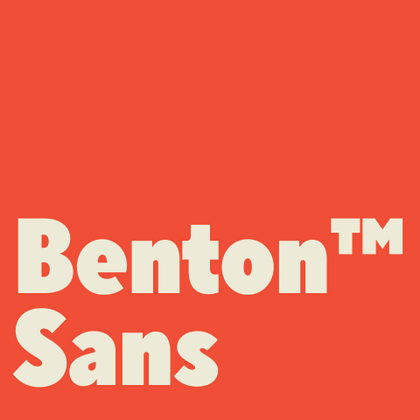
Fonts similar to Benton Sans
TypeType offers dozens of typefaces that retain the key advantages of Benton™ Sans. Fonts from the TypeType collection share Benton™ Sans balanced proportions, excellent readability, and versatility. For corporate style, web interfaces, or printed products, we have proven solutions. All typefaces are developed with modern typographic requirements in mind. If you need a similar style, the TypeType collection offers excellent alternatives for professional use.
If you are tired of overused typefaces and are looking for fonts similar to Benton Sans, check out our best free-to-try Benton Sans alternatives, which have similar characteristics as well as new, unique design features. Some of the fonts belong to the same type category, and others are suitable for the same tasks or have similar traits but stand out for their distinct details or proportions.
Find a great Benton Sans replacement font and try to recreate a similar mood and capture the feeling you aim for by using it in your designs. Each font presented on this page is a twin of the Benton Sans font, practically identical to it.
TT Firs Neue is a contemporary reincarnation of the good old TT Firs sans serif.
TT Octosquares is a fresh, revised, expanded, and significantly improved version of our first commercial font TT Squares & its narrow version.
TT Prosto Sans is a font family for any tasks. You can use this font almost everywhere.